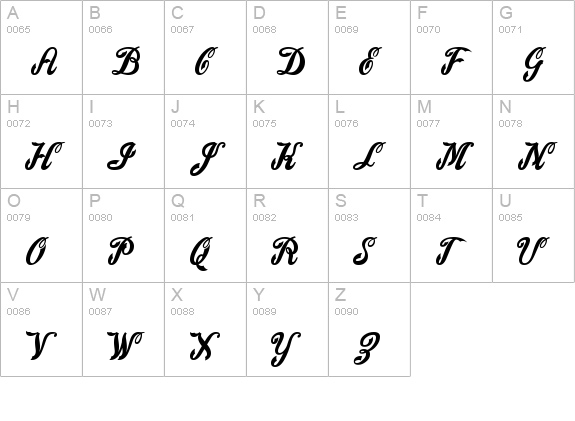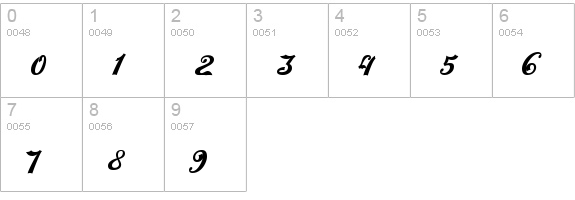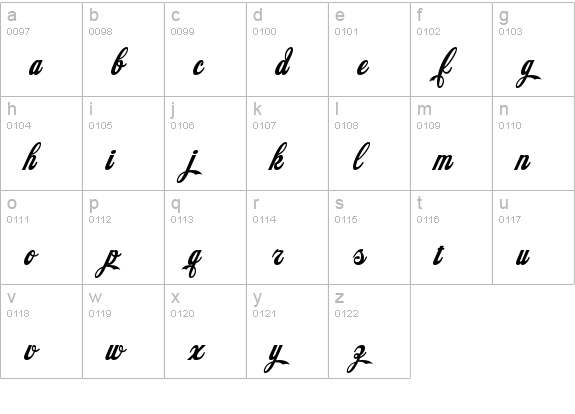
American Pop Plain Font Details
American Pop Plain font is a modern and versatile typeface that effortlessly captures the spirit of American pop culture. With its clean lines and simple, yet bold design, this font is perfect for a wide range of projects, from posters and logos to social media graphics and website design. The sleek and stylish look of American Pop Plain font makes it a popular choice for designers looking to add a touch of Americana to their work. Best of all, American Pop Plain font is available for free download at FontsMarket.com. Whether you're a professional designer or just someone looking to spice up your personal projects, this font is a great choice. Download American Pop Plain font today and add a touch of classic American style to your next project.